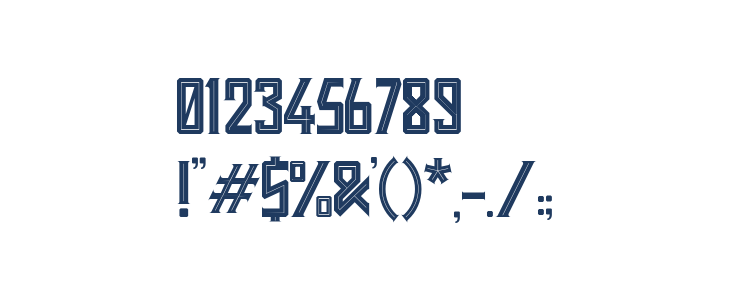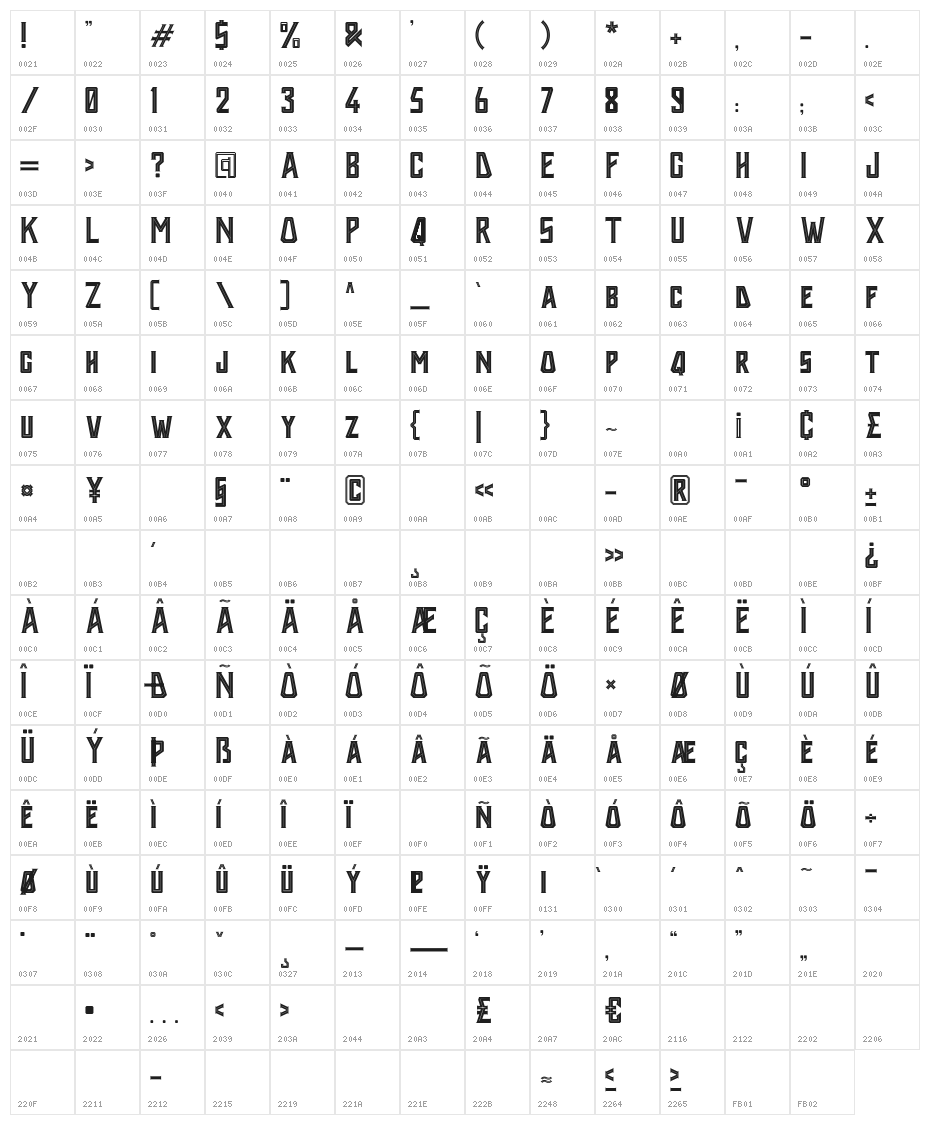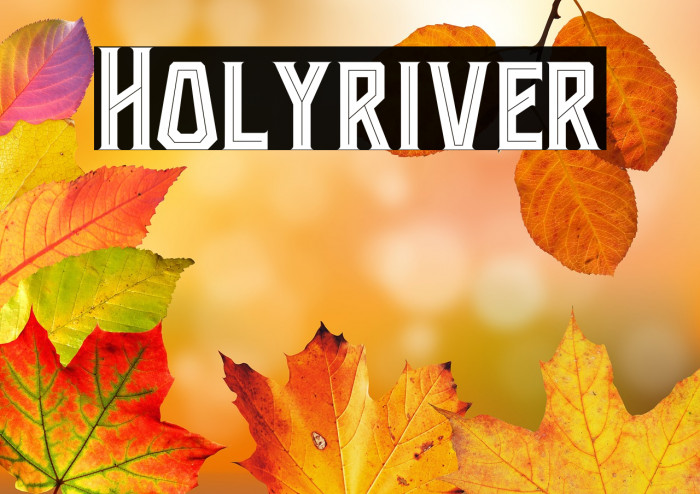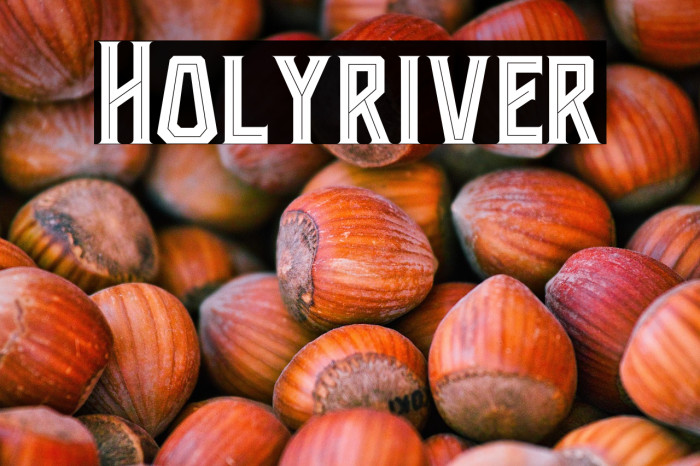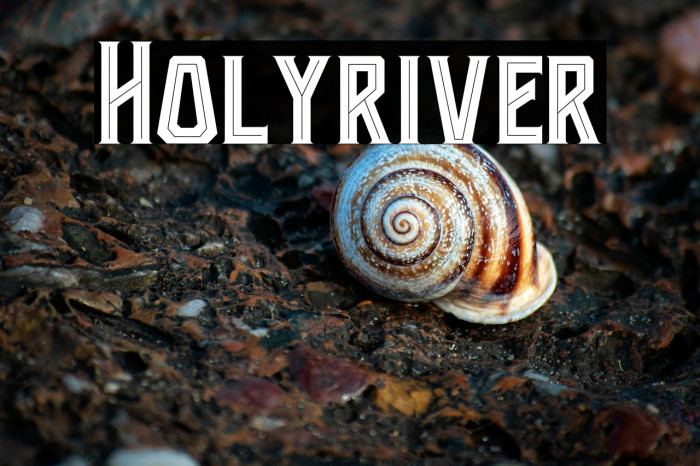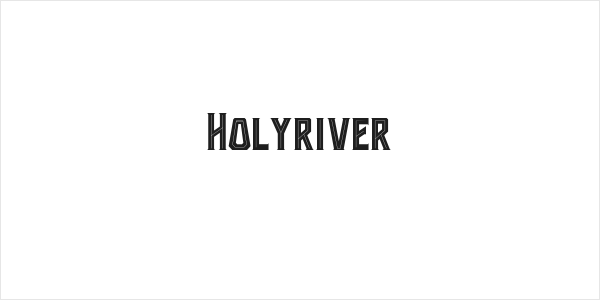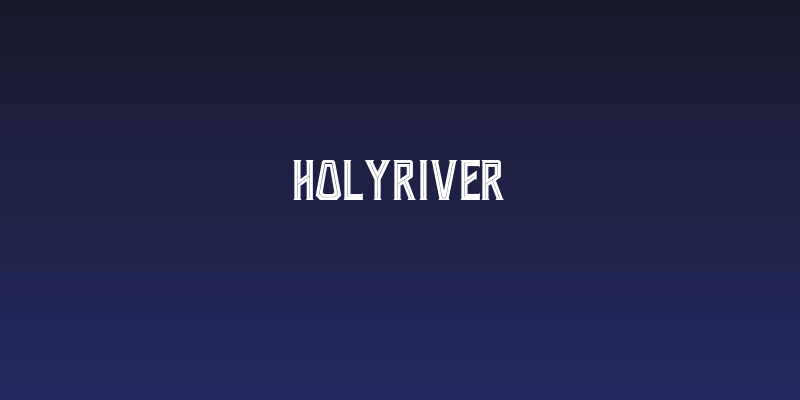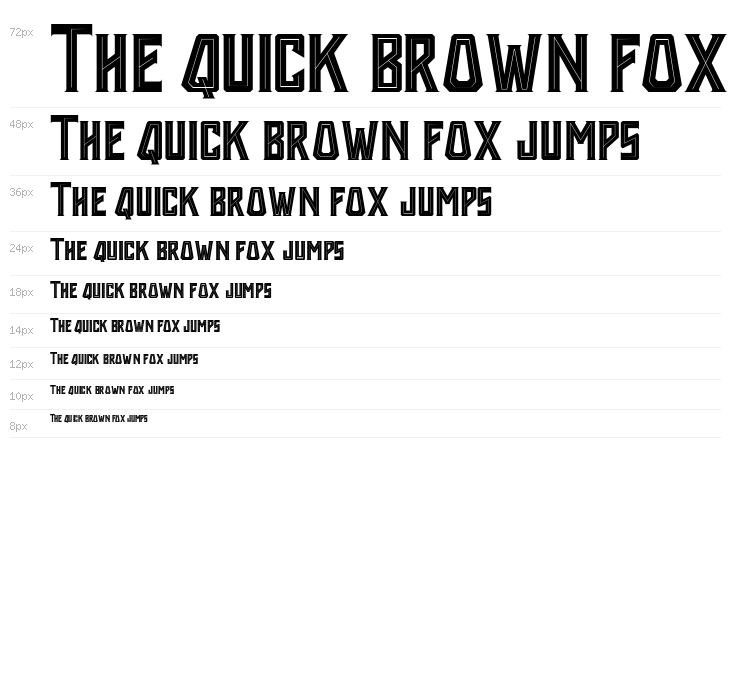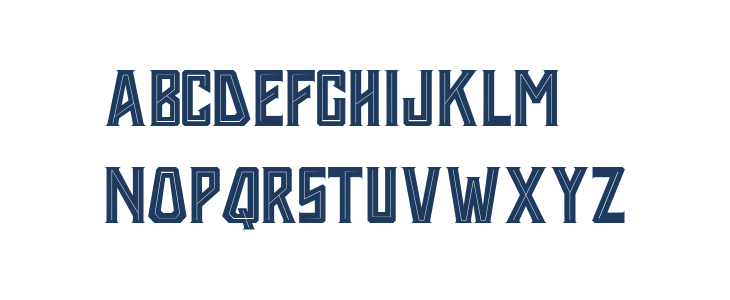
Holyriver Font
Holyriver Description
This font features a bold, geometric style with a strong emphasis on angular lines and sharp edges. The characters are designed with a distinct, modern flair, incorporating a sense of movement and energy. The uppercase and lowercase letters maintain a consistent height, creating a uniform appearance. The numbers and special characters follow the same design principles, ensuring a cohesive look across all elements. The font's unique structure makes it stand out, with its high contrast between thick and thin strokes adding to its striking visual impact.
| Proposed Projects | Ideal for branding, posters, and headlines where a modern and dynamic look is desired. |